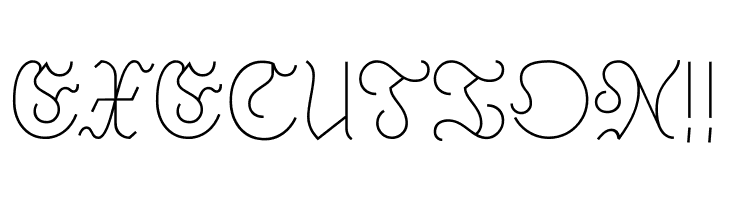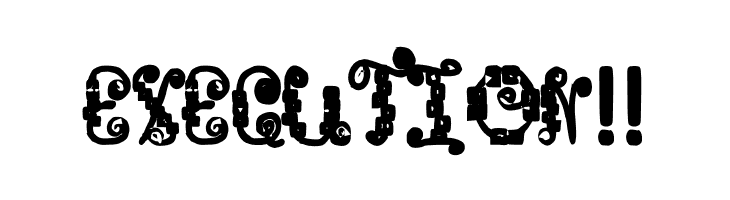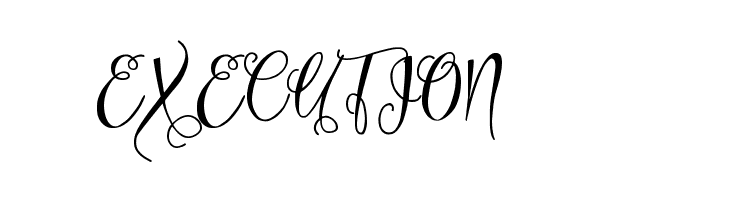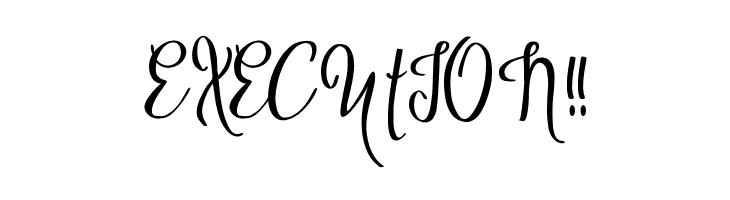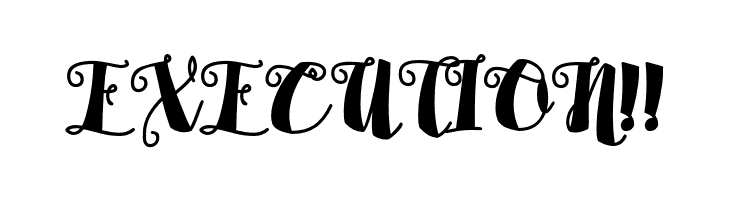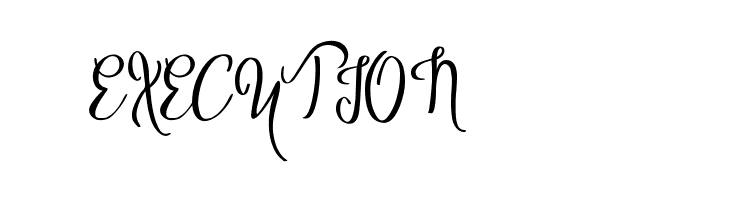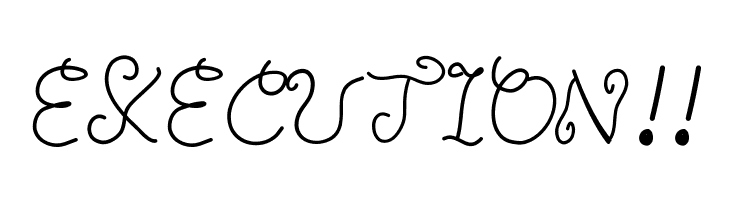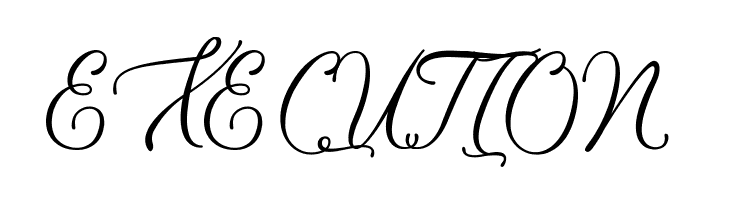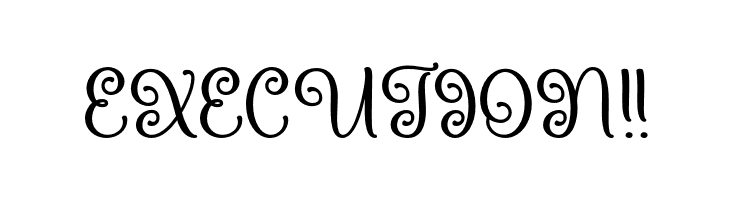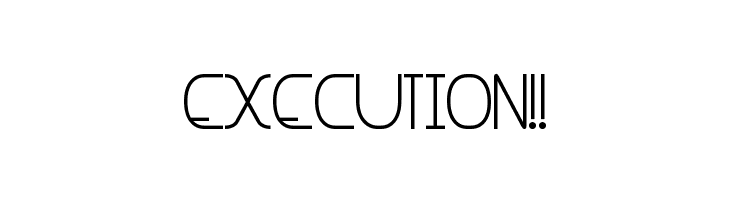
A decorative font with ornate loops and curls, offering a whimsical and artistic flair.
An elegant script font with intricate loops and flourishes, perfect for creative projects.
An elegant cursive script font with ornate flourishes and graceful loops.
An elegant script font with flowing cursive style and intricate loops.
A modern, geometric font with playful loops and clean lines.
A playful, interconnected font with continuous loops and curves.
A playful, handwritten script font with looping, dynamic lines.
A graceful script font with flowing, cursive letters and elegant loops.
A playful, handwritten font with whimsical loops and elegant strokes.
An elegant script font with flowing, ornate letterforms and intricate loops.
An elegant and flowing script font with graceful curves and loops.
An elegant and flowing script font with intricate swirls and loops.
A sophisticated, flowing script font with elegant loops and high contrast.
A whimsical script font with flowing, curly strokes and playful loops.
A flowing, cursive font with elegant loops and smooth transitions.
A decorative cursive font with elegant loops and dynamic contrast.